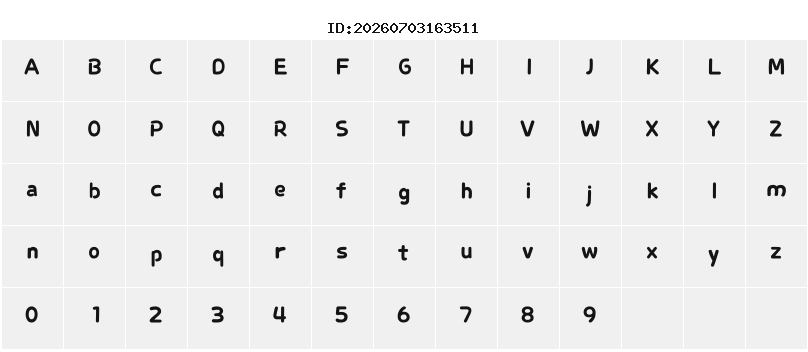
430-上首嘟嘟体 Preview
• Font Name: 430-上首嘟嘟体
• Font ID: 430-SSDuDuTi:Version 4.00
• Full Font Name: 430-上首嘟嘟体
• Version: Version 4.00 March 5, 2026
• PostScript Name: 430-SSDuDuTi
• Character Count: 7602
• Manufacturer: 上首造字
About 430-上首嘟嘟体.ttf
430-上首嘟嘟体.ttf is a modern, elegant sans-serif font designed for ultimate readability and visual harmony. Perfect for branding, headlines, web design, and print materials.